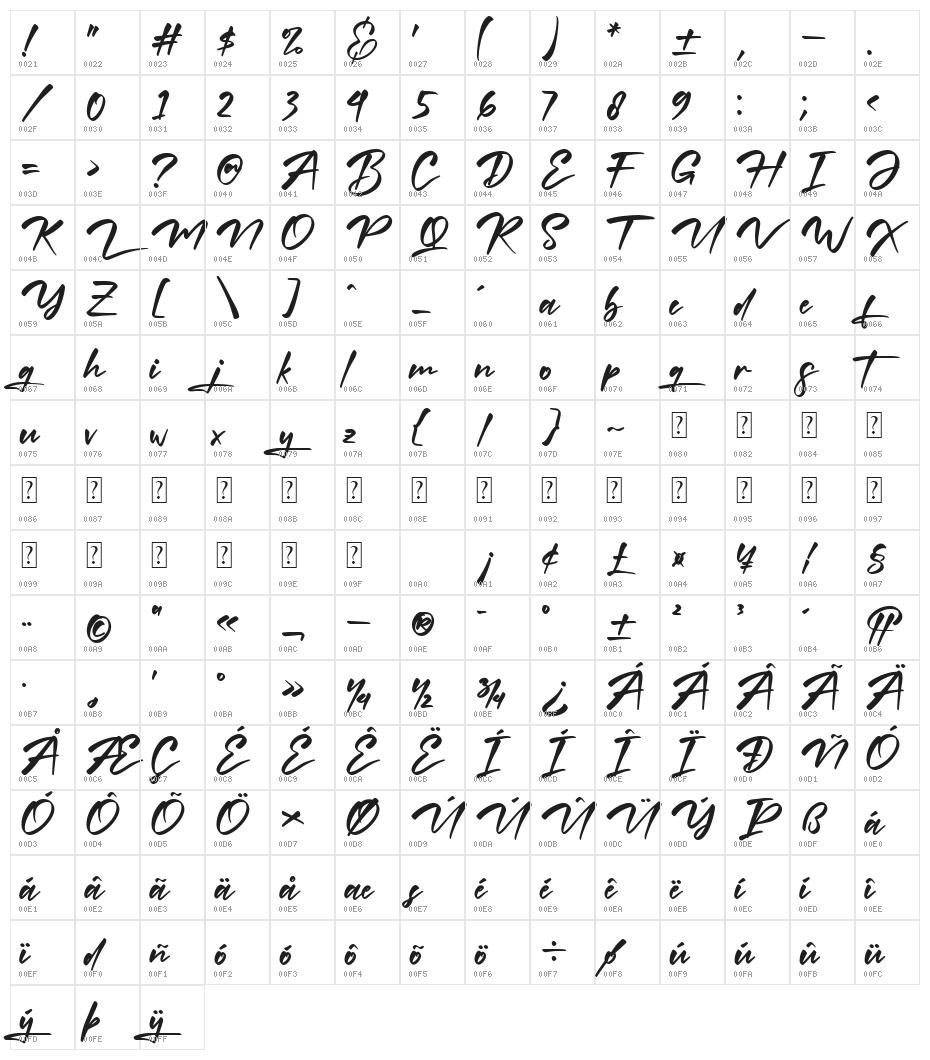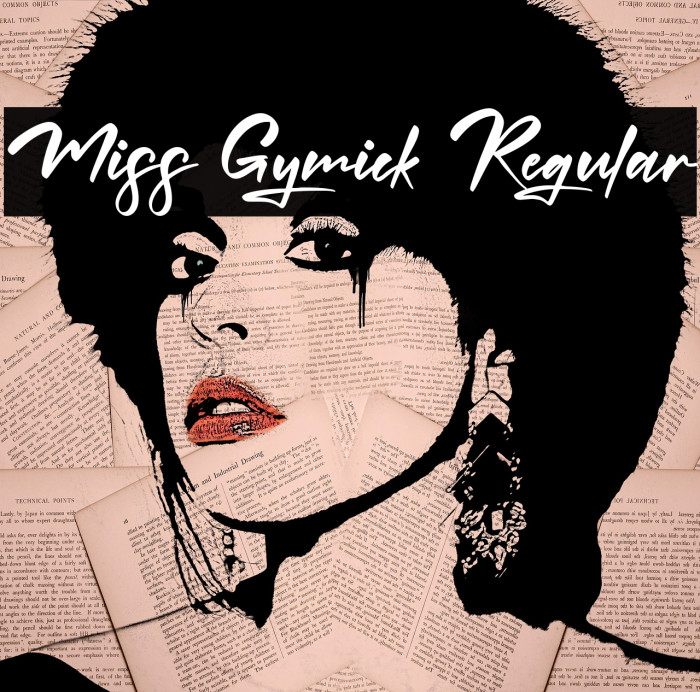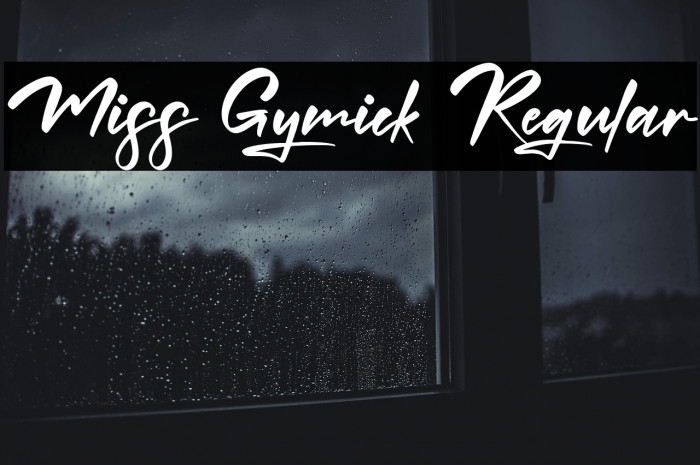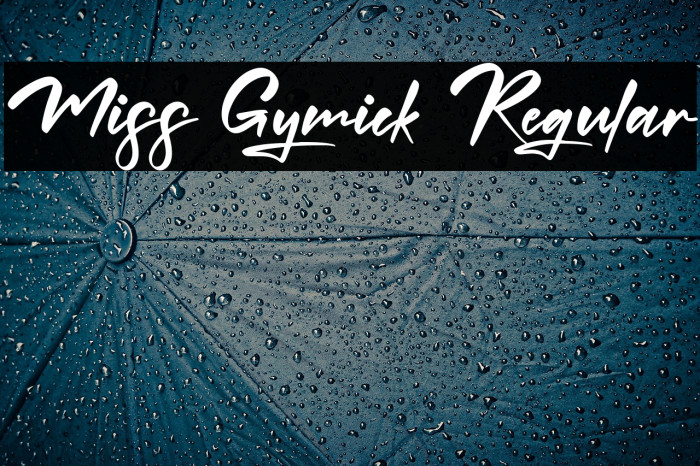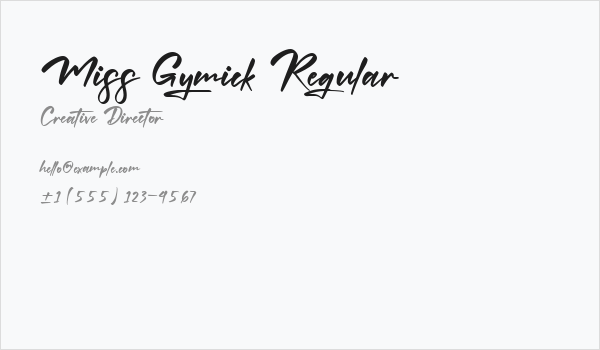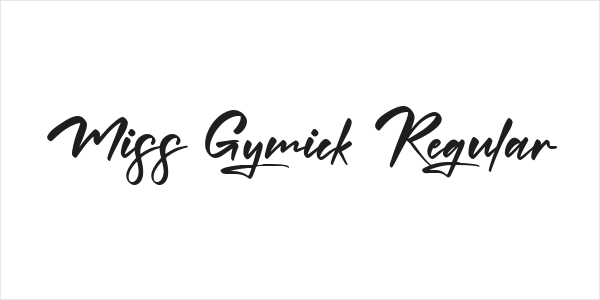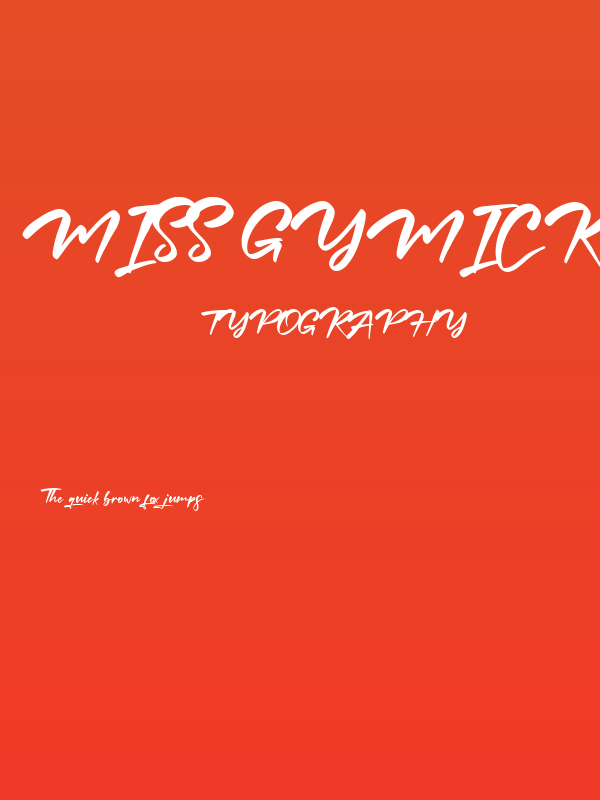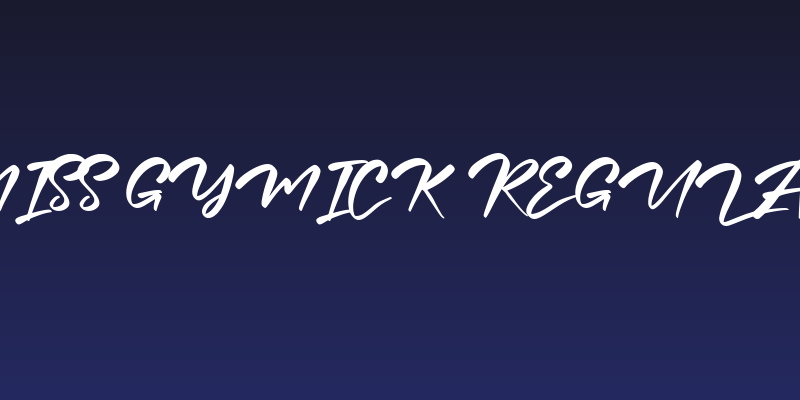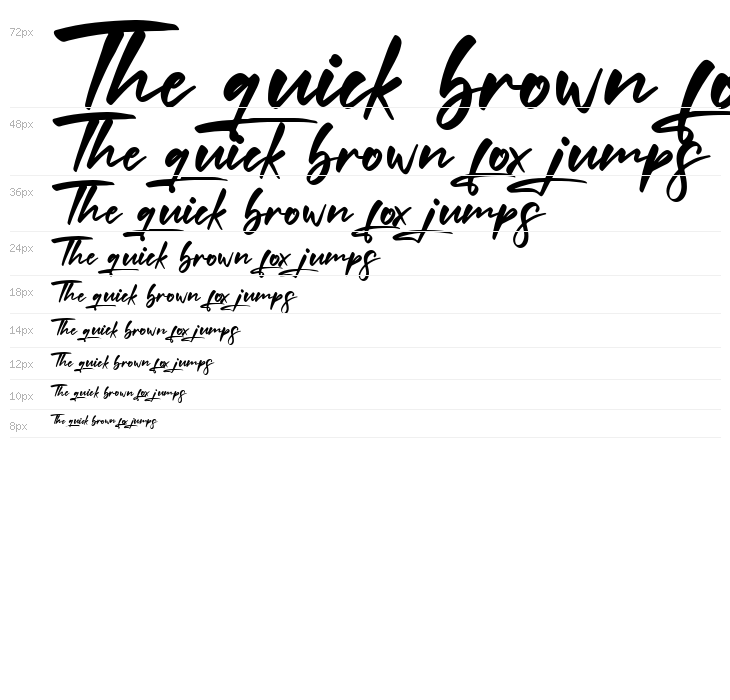
Miss Gymick Regular Font
Miss Gymick Regular Description
This font exhibits a dynamic and energetic script style, characterized by its bold and flowing strokes. The uppercase letters are elegantly connected, creating a sense of movement and fluidity. The lowercase letters maintain a consistent rhythm, with some letters featuring unique loops and swashes that add a playful touch. The numerals are bold and slightly slanted, complementing the overall cursive aesthetic. Special characters are creatively integrated, maintaining the font's lively and expressive nature. This font's design is perfect for projects that require a personal and artistic flair.